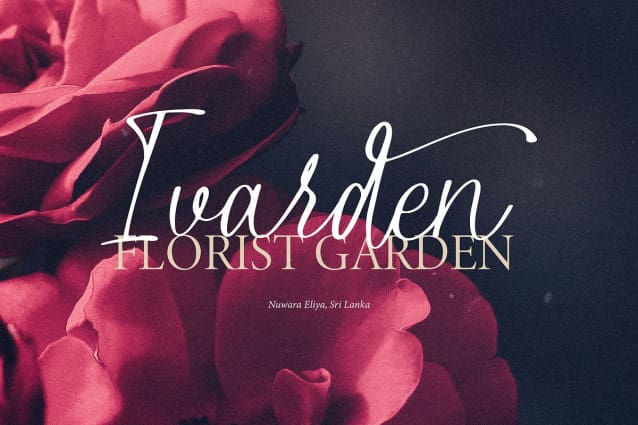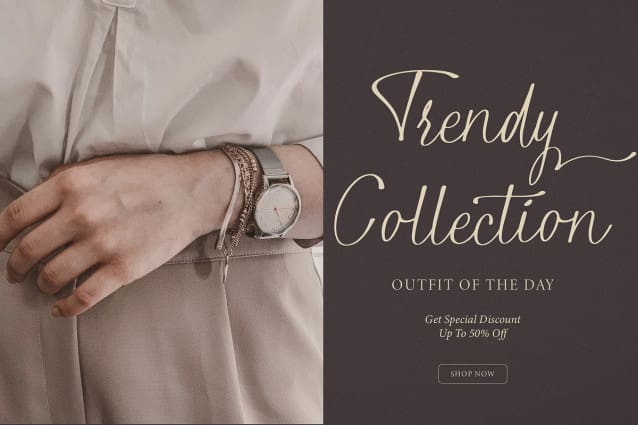
Alphiness Script Font
Alphiness Script Font | Handwritten Script Font, from Denustudios, suitable for any projects such as: logos, branding projects, homeware designs, product packaging, mugs, quotes, posters, shopping bags, t-shirts, book covers, name card, invitation cards, greeting cards, label, photography, watermark, special events, and all your other lovely projects that need a beautiful script taste.